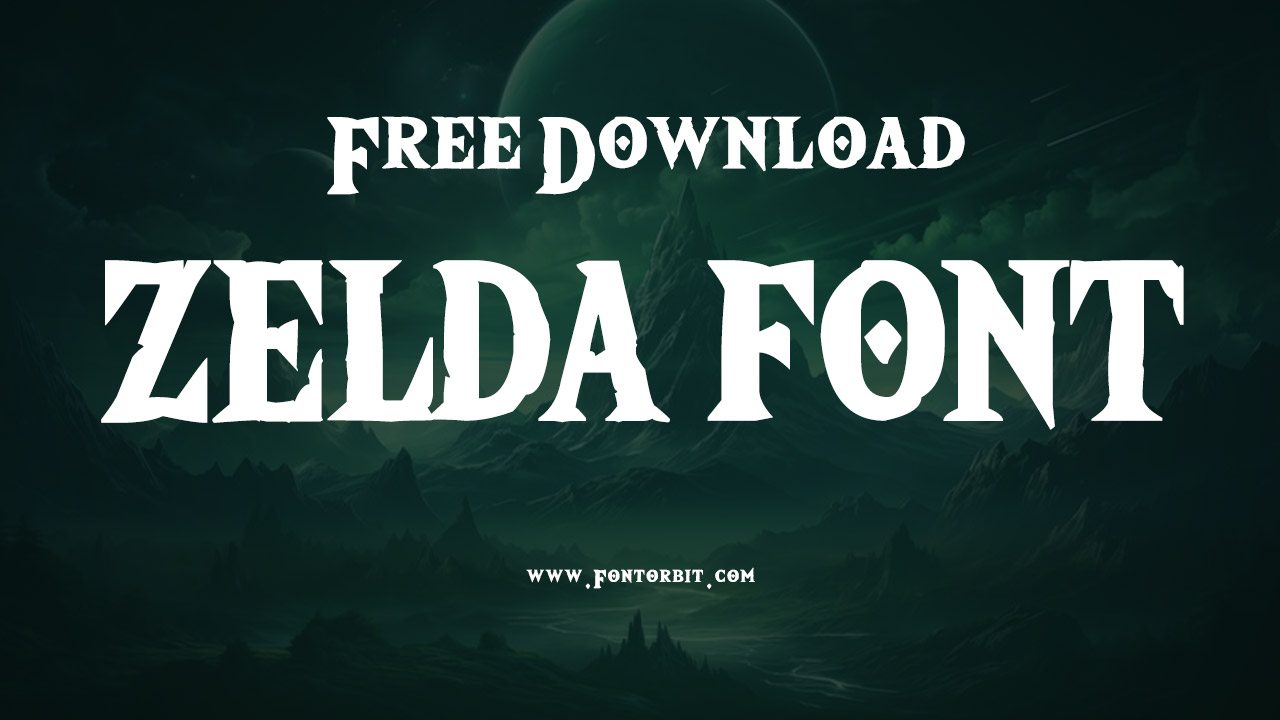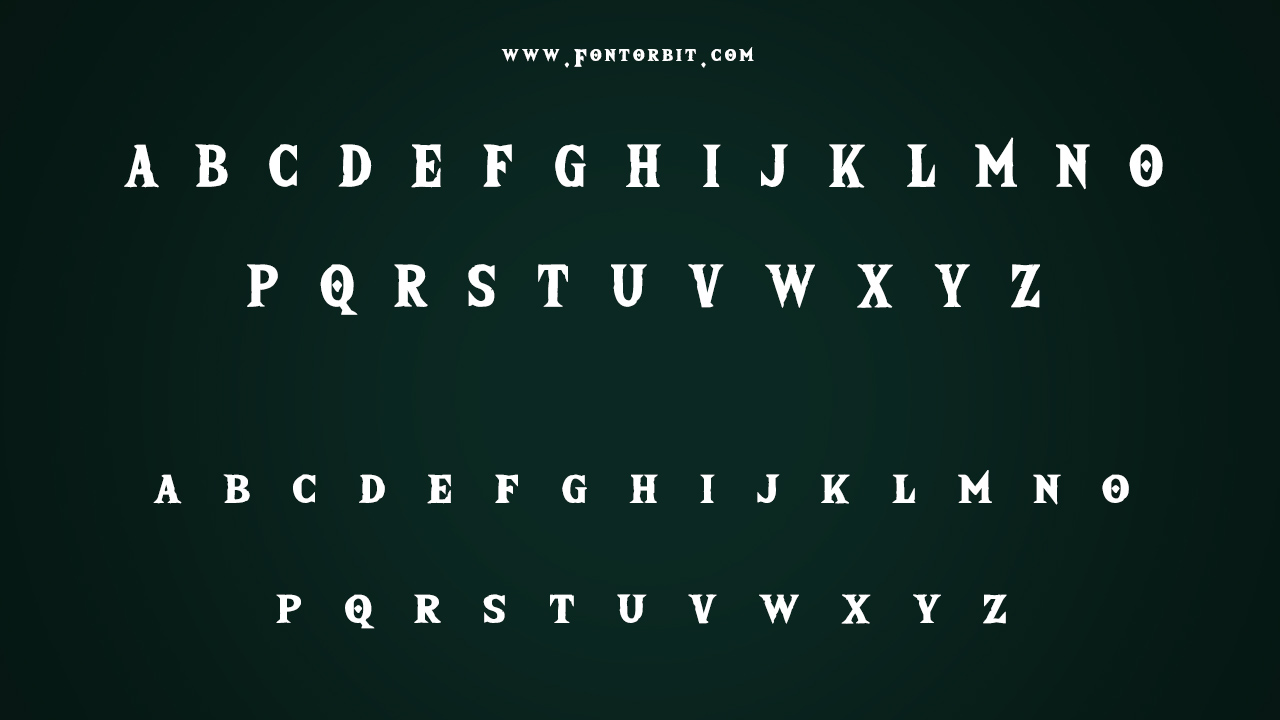
The Zelda Font captures the iconic and fantasy-rich aesthetic of The Legend of Zelda series. Inspired by various game titles in the franchise, the Zelda Font family offers a range of styles closely related to the typography seen in the series.
While the franchise uses custom fonts for its branding, there are several public fonts that closely resemble these designs. The most notable is The Wild Breath of Zelda designed by Chequered Ink. This evokes the distressed look of the Breath of the Wild game logo.
The Zelda Font Family
- The Wild Breath of Zelda
- Zelda DX TT BRK
- Zelda Oracles
The Zelda Font family captures various elements of the franchise’s unique typographic style, from the polished appearance of Hylia Serif to the eroded aesthetics of The Wild Breath of Zelda.
The Zelda Font is perfect for projects that capture the fantasy and adventure of The Legend of Zelda series. Its distinctive styles make it ideal for creating immersive game graphics, fan art, themed merchandise, and engaging digital media. It’s a versatile choice for any design project that seeks to evoke the spirit of Hyrule.
The Zelda Font, represented by options like The Wild Breath of Zelda, reflects the iconic and adventurous aesthetic of The Legend of Zelda series. The public versions of these fonts provide a similar look to the custom designs used in the games and can be seamlessly incorporated into your design projects for a touch of Hyrule.
The Zelda Font closely represents styles inspired by The Legend of Zelda series, including The Wild Breath of Zelda, which mirrors the custom fonts used in the games.
Fonts similar to the Zelda Font include Hylia Serif, Triforce, and Hylian, which offer designs reminiscent of the series’ branding.
The font features a fantasy and adventure-rich design, ideal for creating immersive and thematic visuals.
Use fonts like The Wild Breath of Zelda or Hylia Serif to create engaging fan art, immersive game graphics, themed merchandise, and distinctive branding materials.
The Legend of Zelda logo uses a custom font inspired by medieval calligraphy. Similar public fonts include Hylia Serif and The Wild Breath of Zelda.